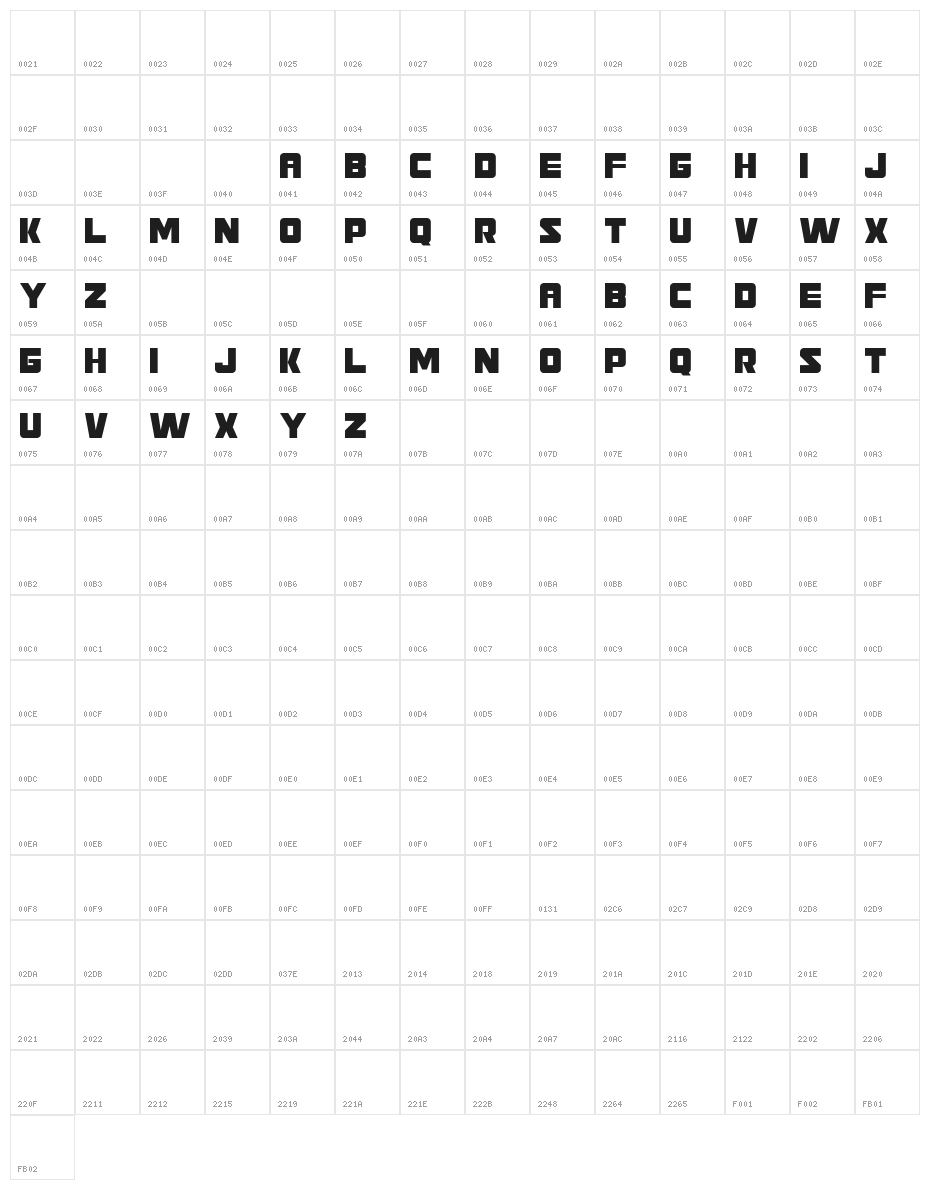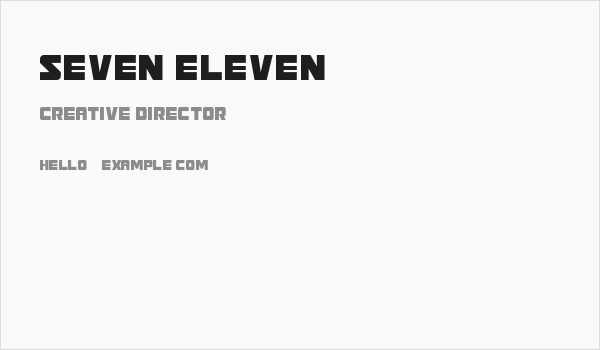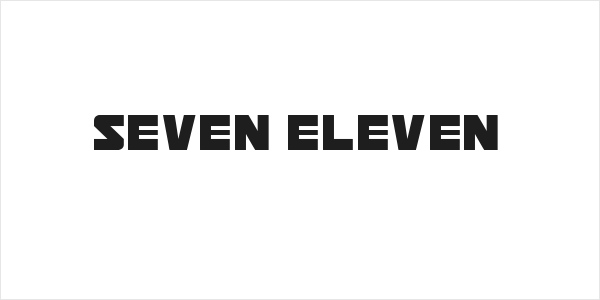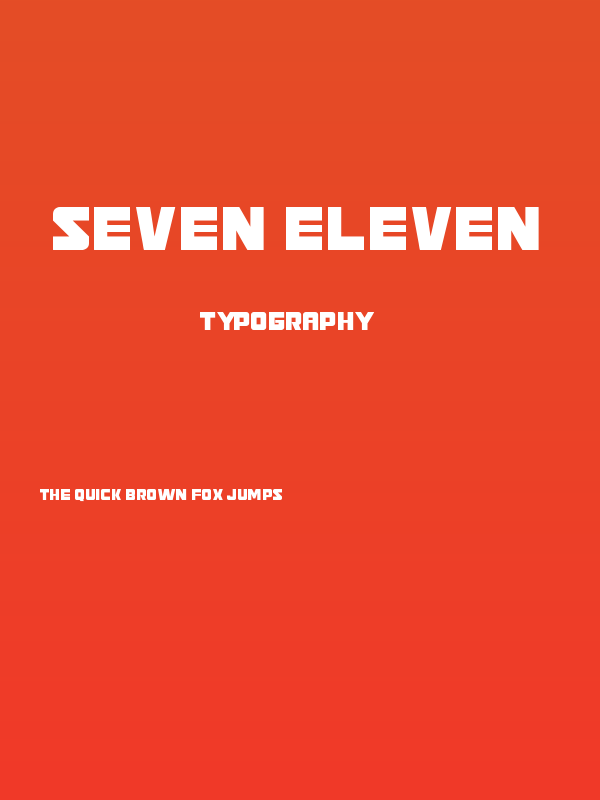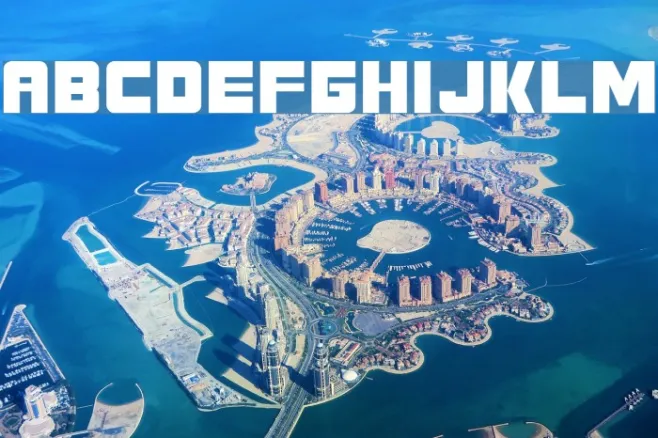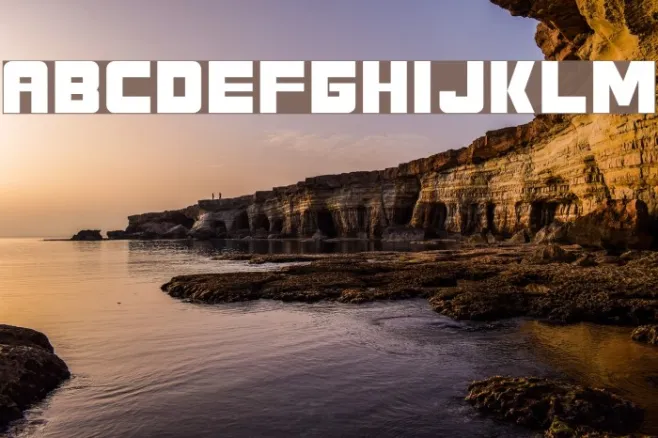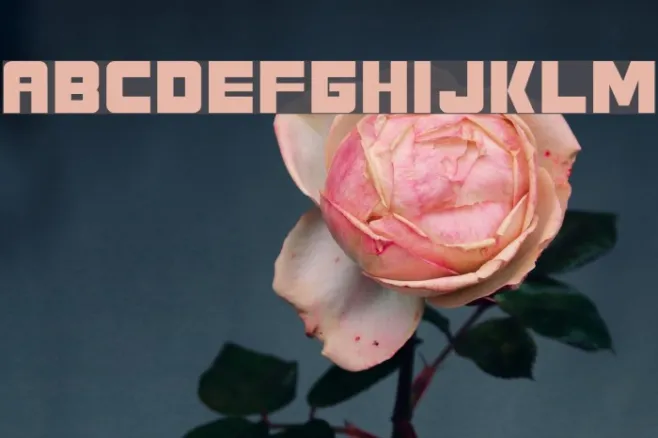
Seven Eleven Font
Seven Eleven Description
This font features bold, geometric letterforms with a strong presence. The characters are uniformly thick, creating a solid and impactful look. The design is clean and modern, with sharp edges and a consistent stroke width throughout. The uppercase letters are particularly striking, with a blocky appearance that commands attention. This font is ideal for making a statement, with its bold and assertive style. The uniformity in the design ensures readability while maintaining a distinctive aesthetic that stands out.